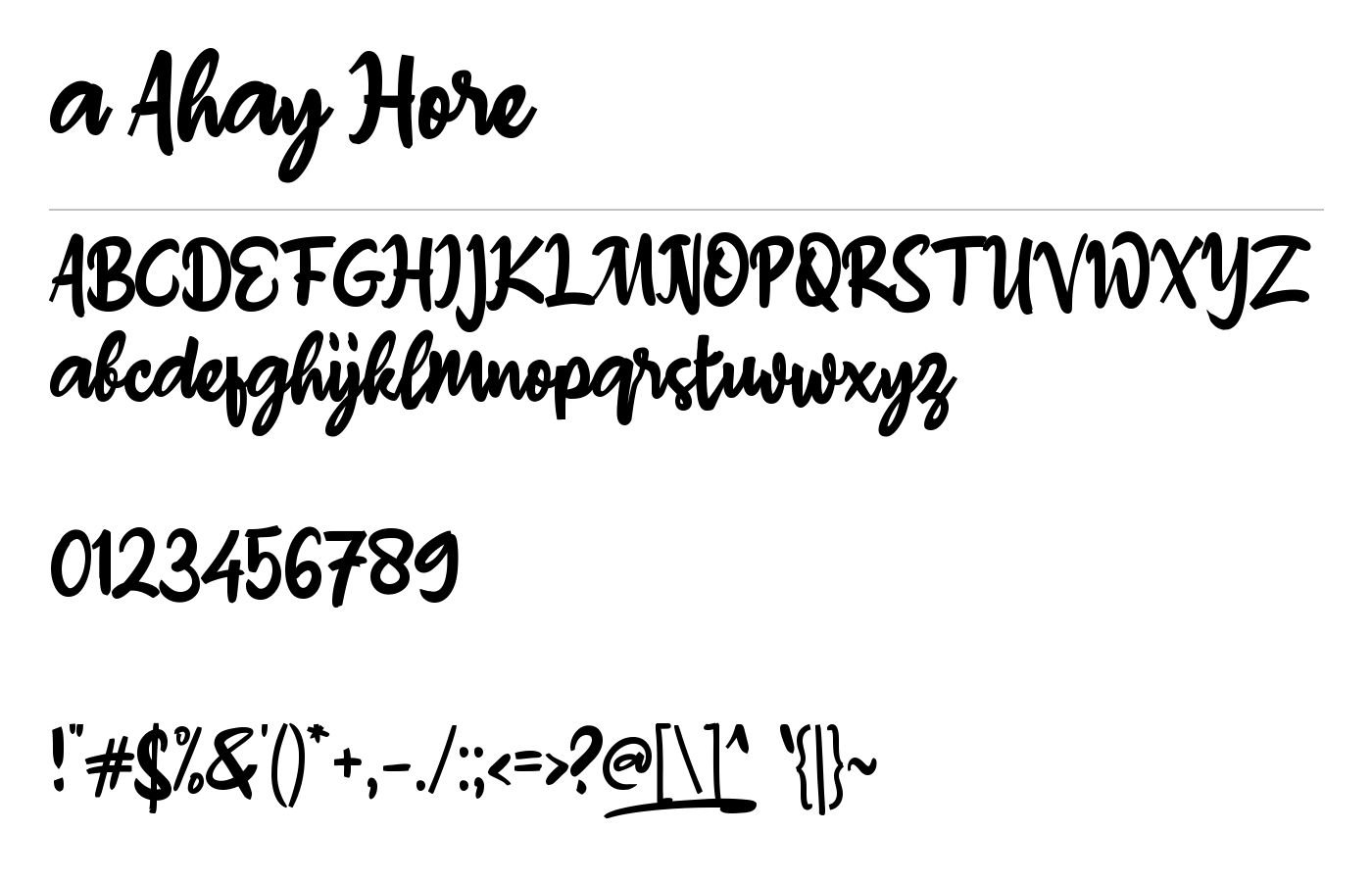
a Ahay Hore is a lively and bold script font with a handwritten feel, featuring smooth, rounded strokes and a confident, casual style. Its moderately tall x-height and medium stroke contrast make it highly readable while exuding personality and warmth, perfect for branding, invitations, and expressive headlines. This font works well where a friendly, approachable, yet stylish tone is desired.
a Ahay Hore Font
About a Ahay Hore Font